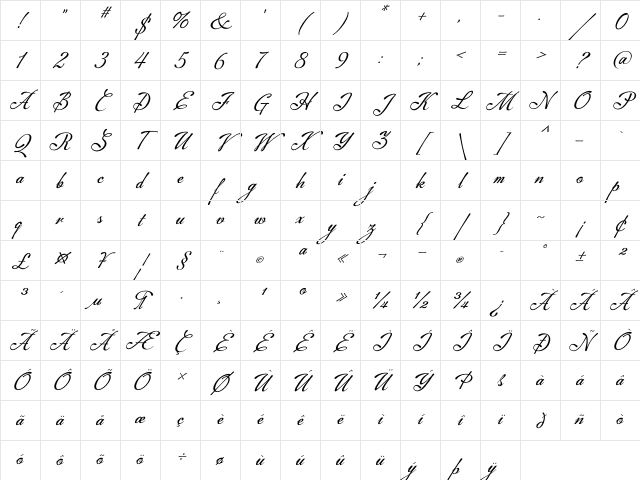
Complete Machia Regular glyph index. Displaying only characters natively supported by Machia Regular font.
Machia is a composed and adaptable typeface that performs quietly and consistently across a wide range of design contexts.